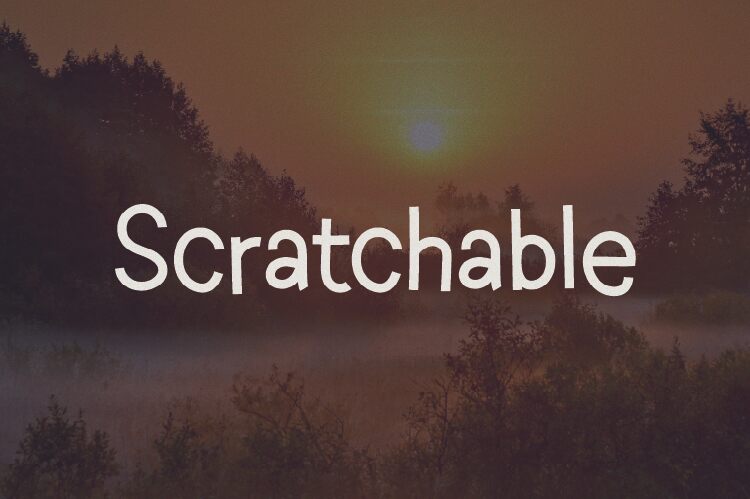
Scratchable font family was designed by Hanna Bie, and it features 2 font styles. A modern font, Scratchable brings a contemporary appeal that matches its clean design and fancy overall style. Subtle textures accompany each character for an exquisite experience with decorative letters.
Both casual and approachable at its core, the font delivers high versatility that makes it popular for different designs. Brand Scratchable different design projects that require titles and logotypes, and add it to applications projects, packaging designs, posters, ads, subtitles, or even online platforms.